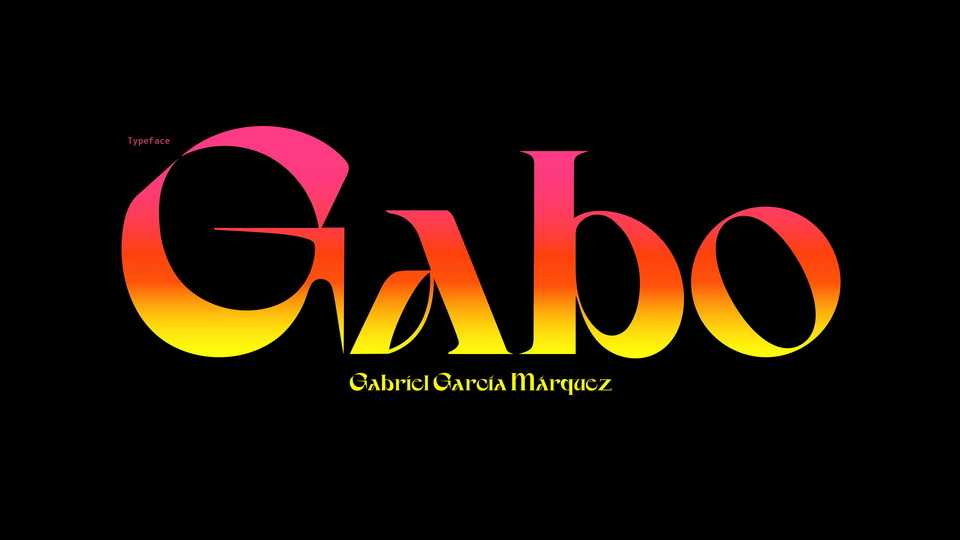
Download GarciaMarquez font, a unique serif typeface inspired by the life and work of Gabriel Garcia Marquez. The world of Gabo turned into a space where other worlds fit in and coexist, creating a great empathy, lies behind the realization of this non-conformist typeface.
Designer: Shalom Guevara